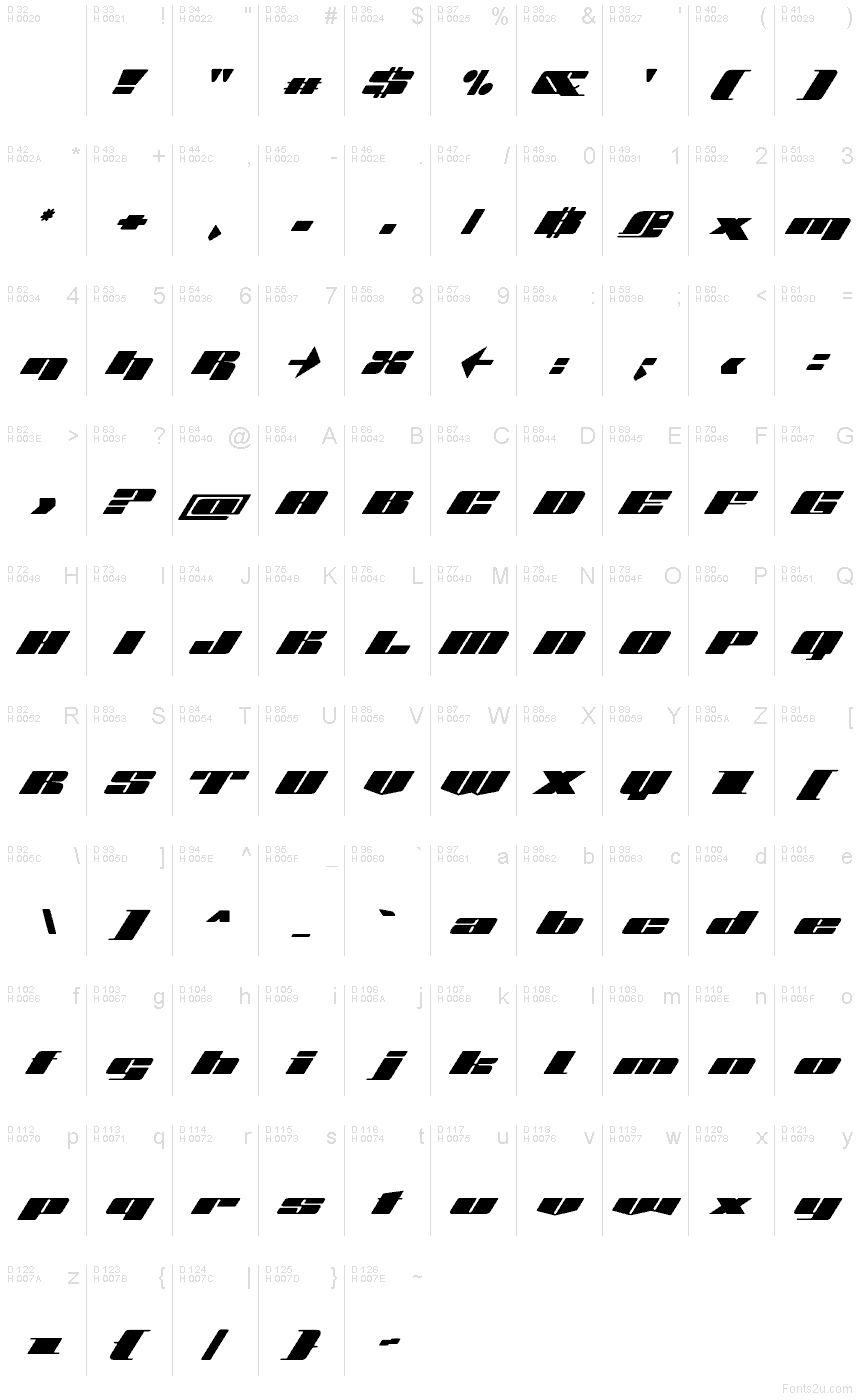
Octavus Black
Octavus Black font by Fernando Haro is a modern, expanded bold typeface that brings a remarkable impact to headlines and large body texts. With sleek angular characters and exquisite geometric constructions, this sharp display typeface adds an unequaled touch to every letter which will be represented both in print and non-digital displays.
This futuristic font features keen edges that give it a versatile use in many contexts including scientific magazines, engineering topics, architectural magazines, skyscrapers ads, mechanical publications, aviation themes, typography textbooks or web articles dealing with digital technology topics. Free to use and update your most recent design projects!